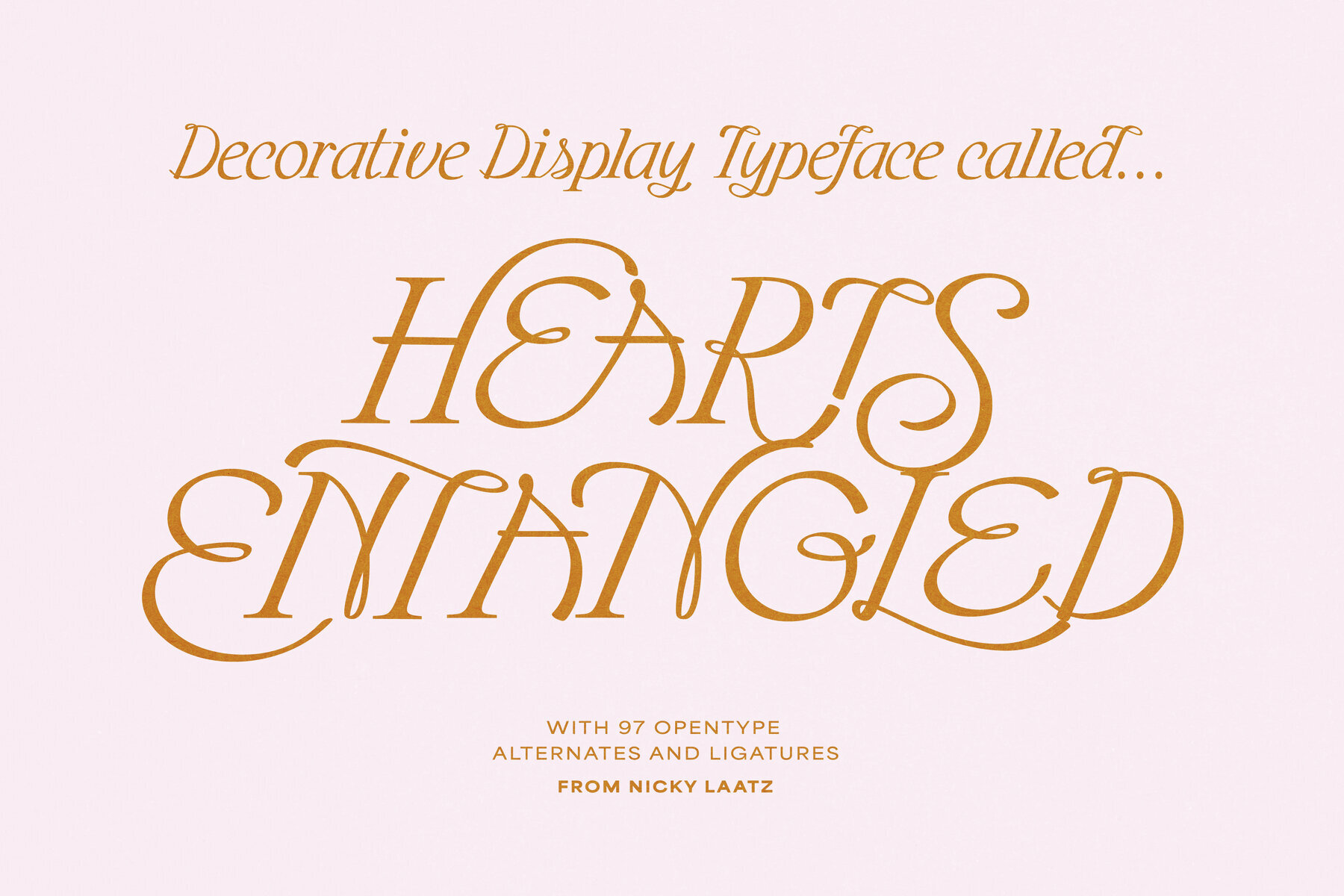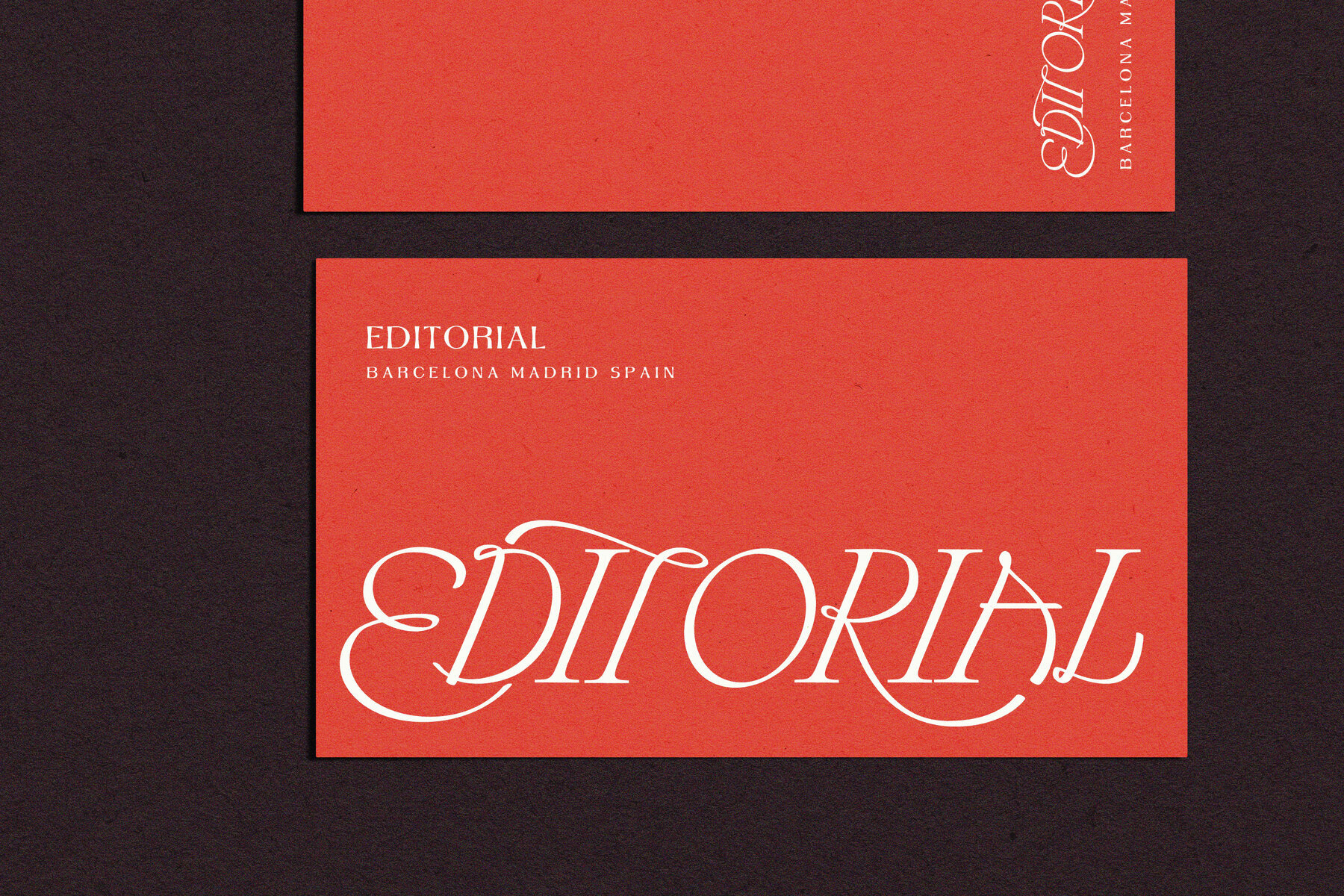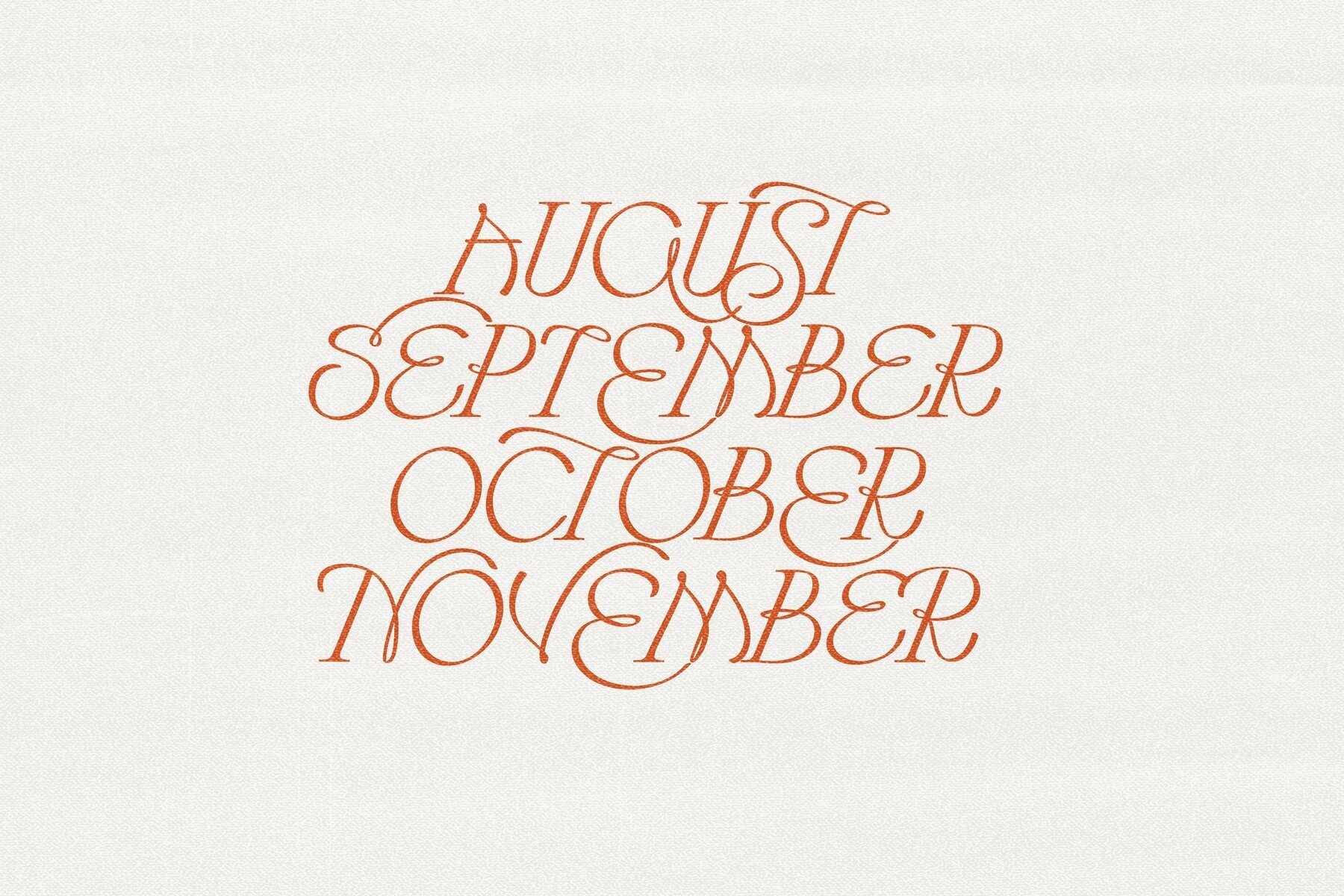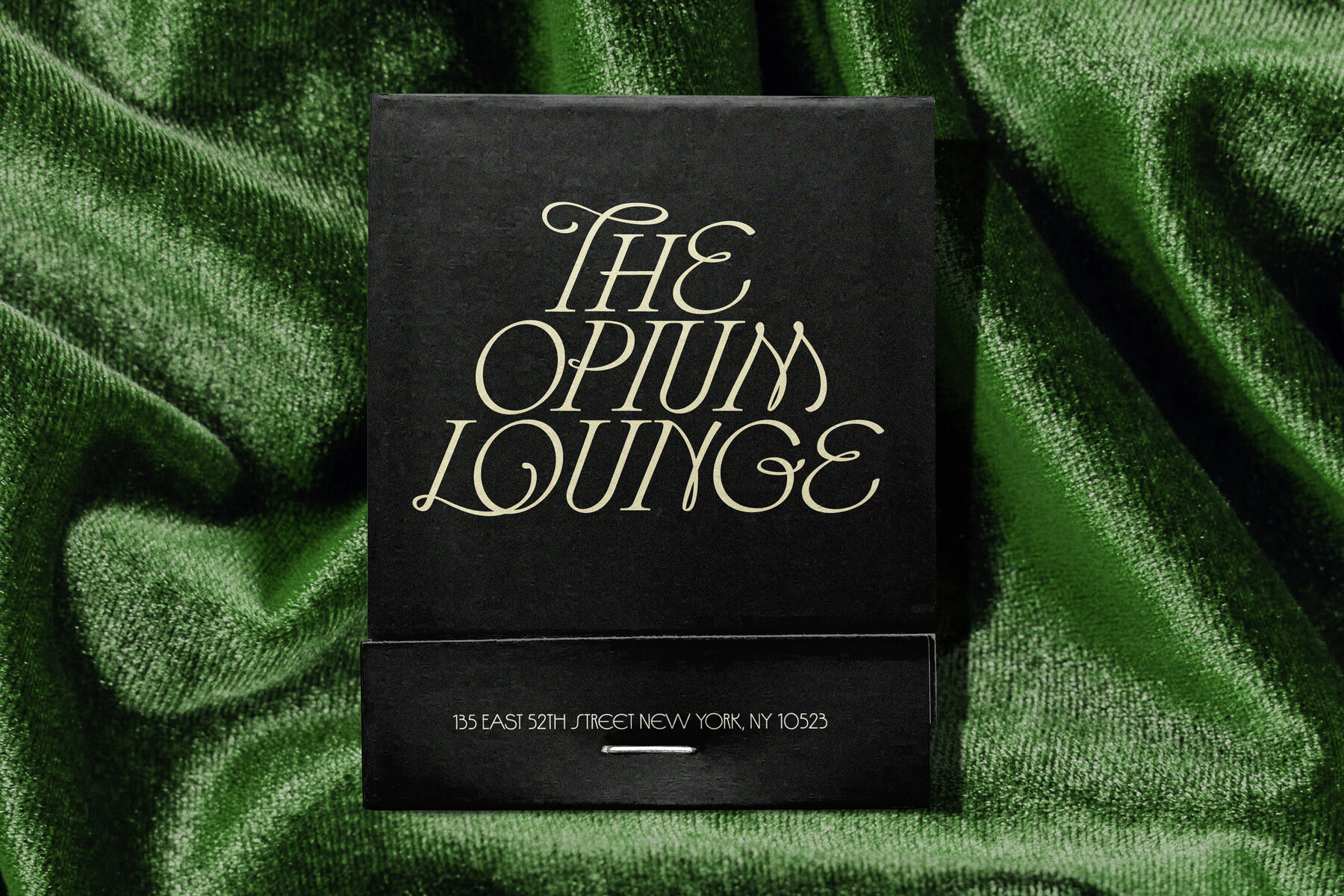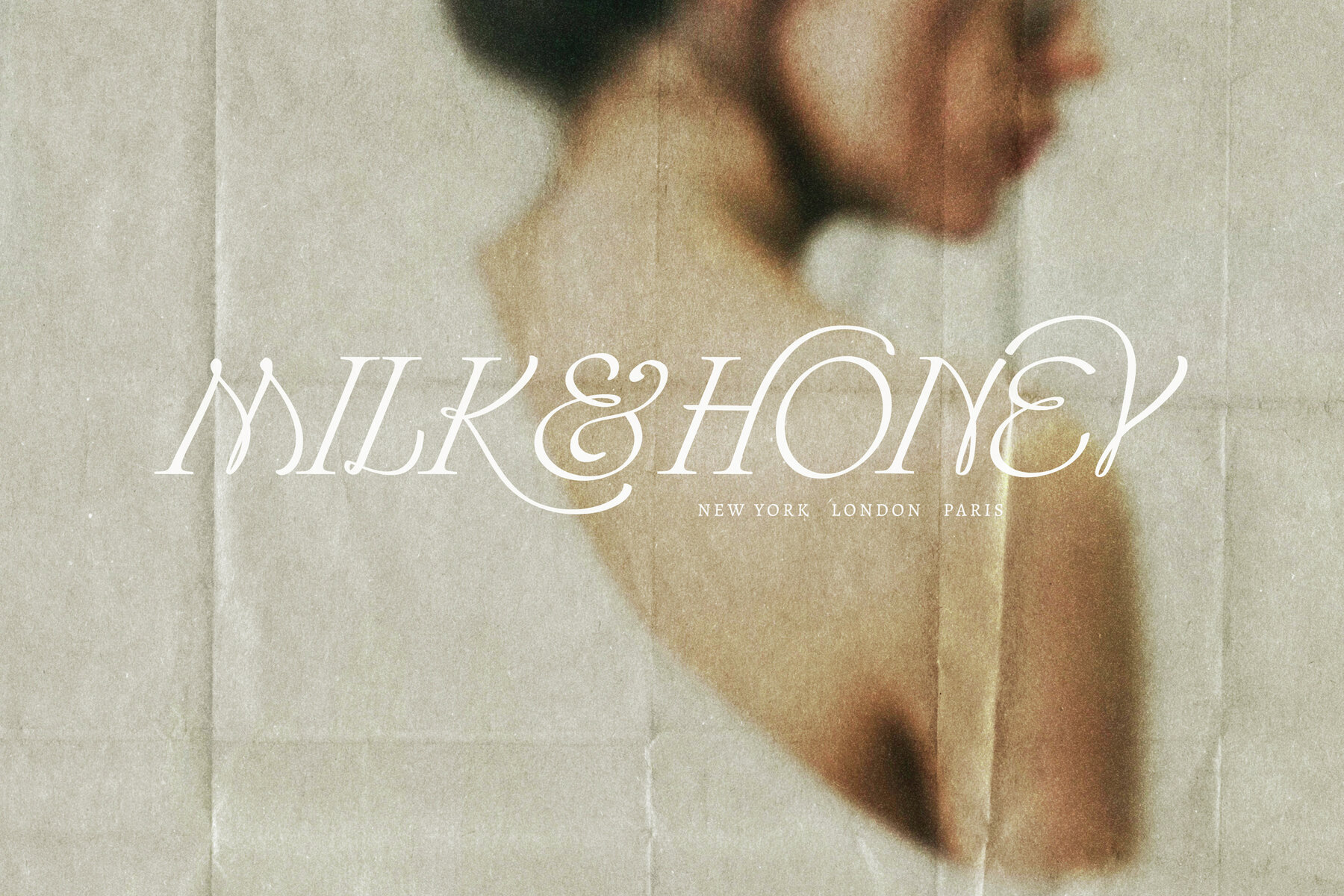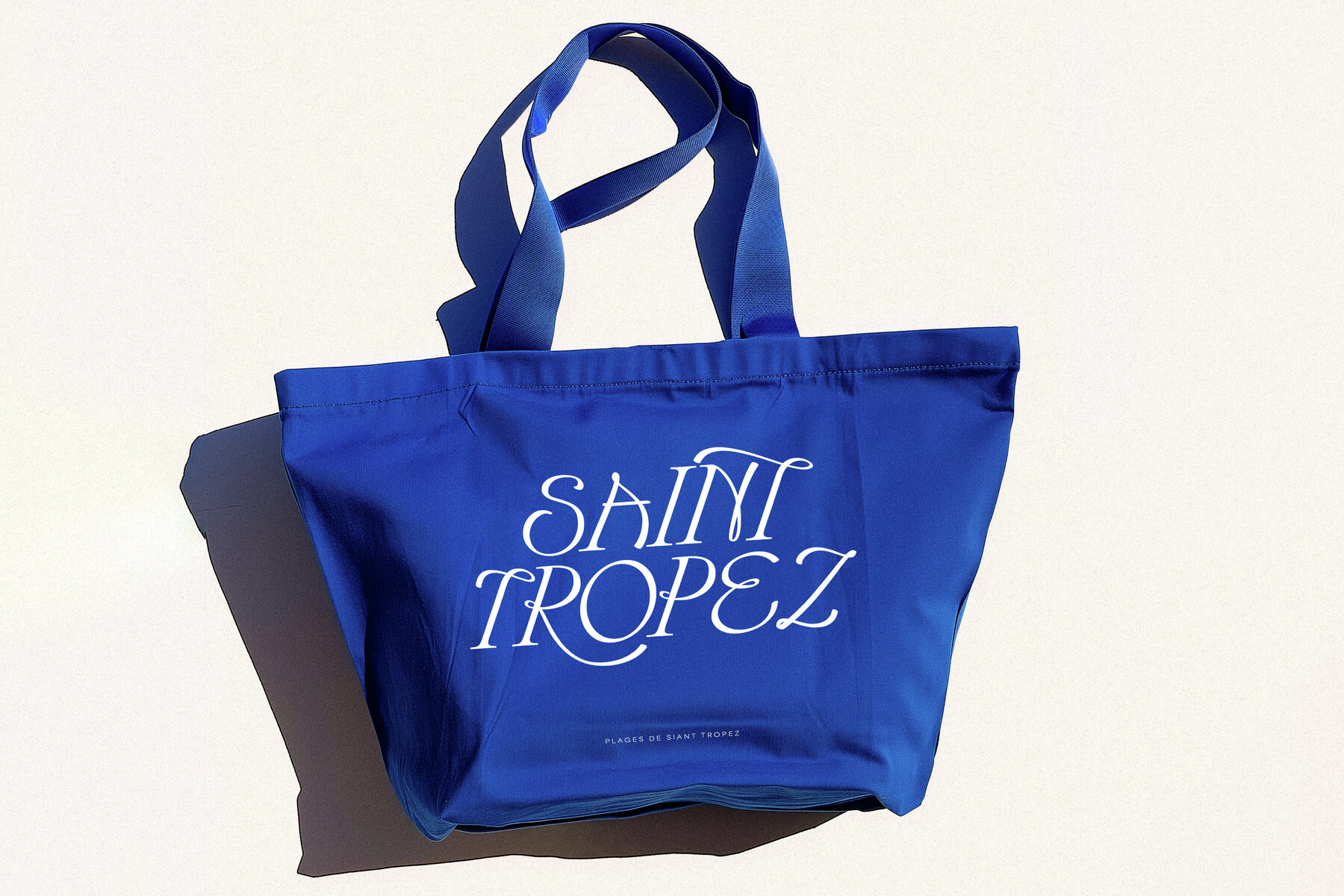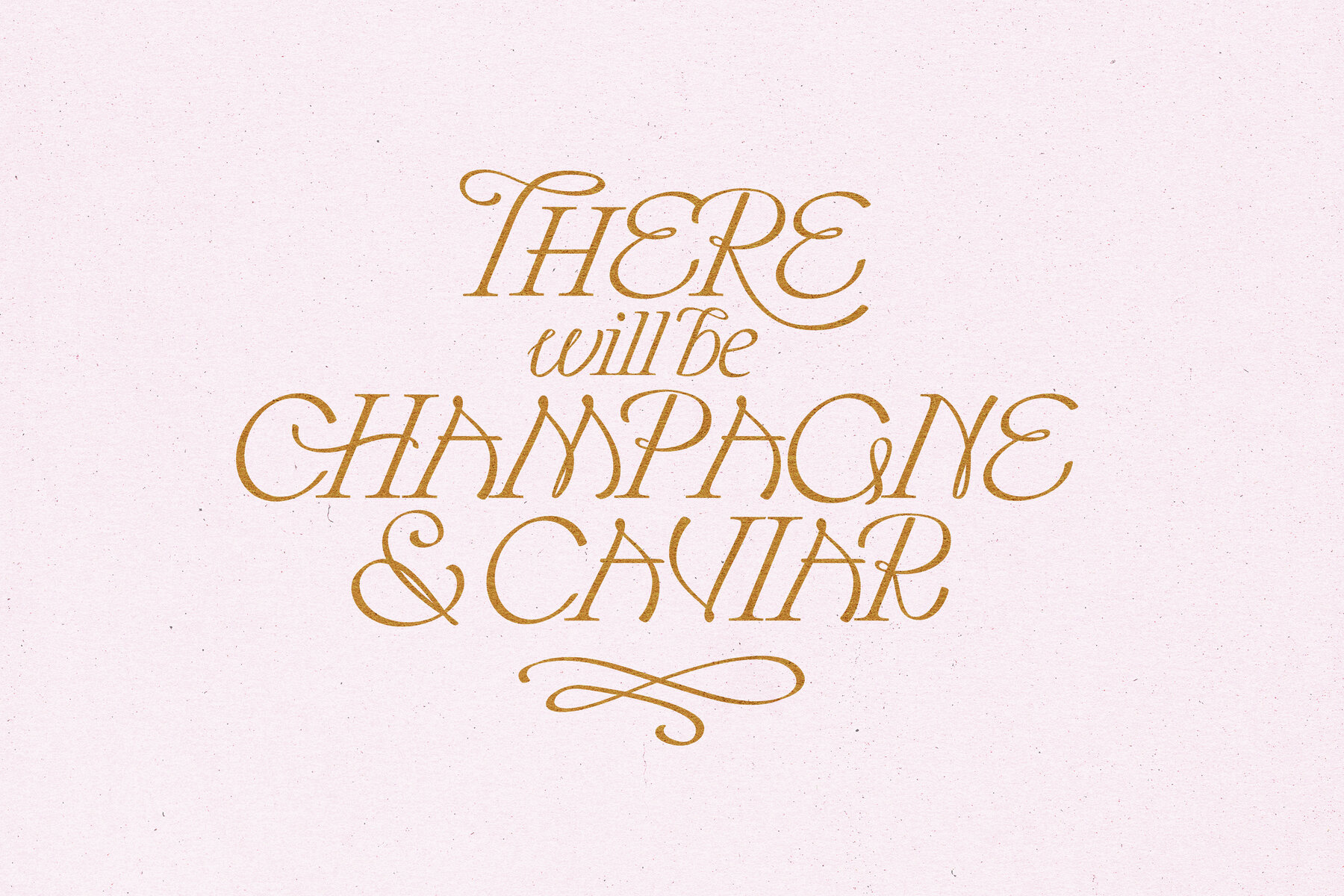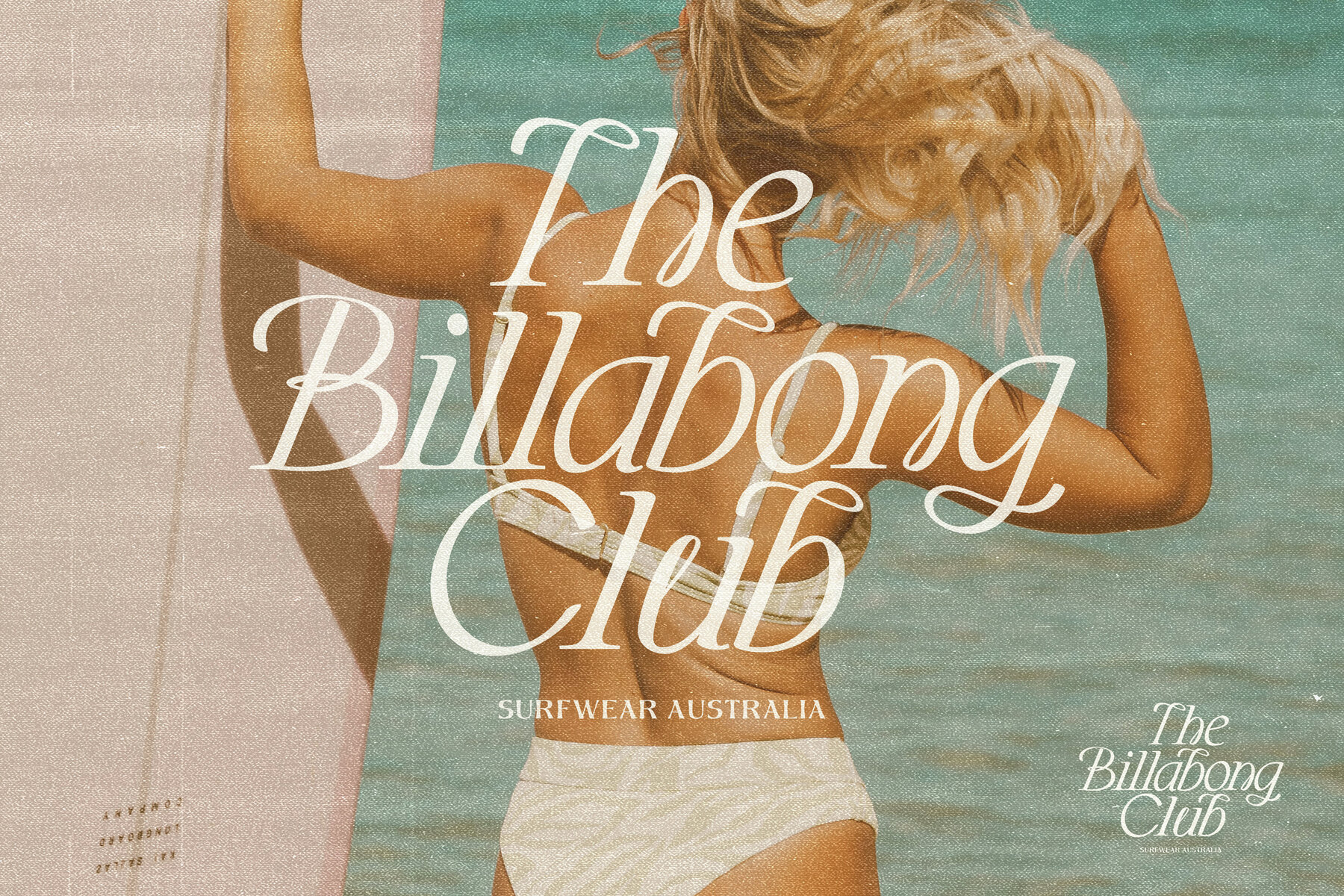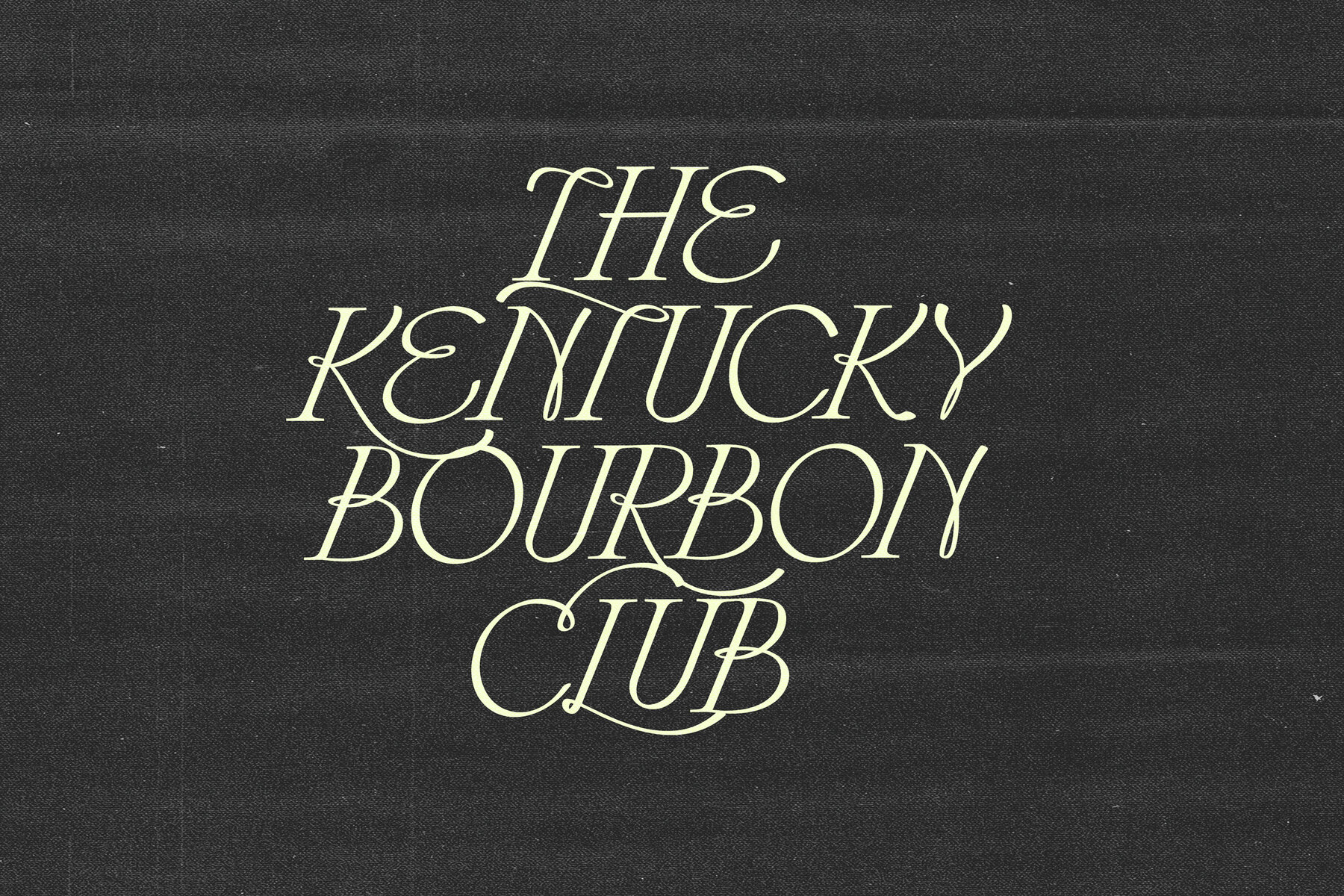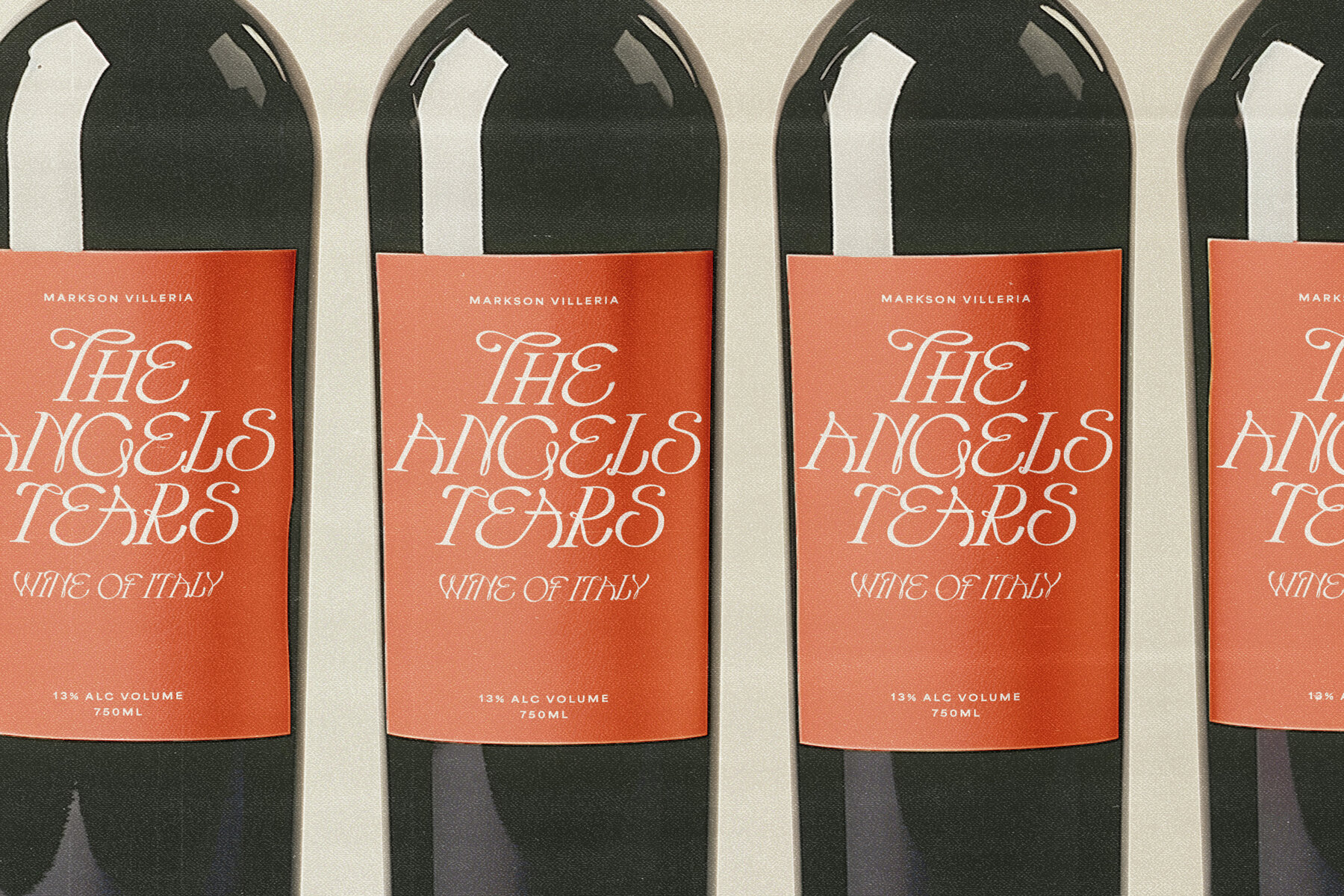
Hearts Entangled Font
Say hello to ‘Hearts Entangled’ - Where timeless, romantic calligraphy meets a traditional serif, creating an expressive, flamboyant fusion of elegance and decorative artistry. Hearts Entangled is adorned with ornate swoops and swashes that evoke the charm of Art Nouveau and Victorian-era typography. Its delicate, flowing strokes and smooth curves create a graceful and fluid aesthetic, ensuring that your text exudes a sense of classic beauty and vintage nostalgia. Designed with high contrast between thick and thin strokes,Hearts Entangled delivers a dramatic and stylish impact, perfect for luxury branding, elegant invitations, and high-end editorial designs. Opentype Extras : Be spoiled for choice with the 97 custom additional glyphs you can choose from , in the forms of Opentype ligatures, discretionary ligatures, and stylistic alternates - All accessible via Opentype. (Opentype capable software - such as Photoshop, Illustrator, Word, Figma etc.) This Typeface has 5 extra' VERY SLIGHT' weight variants - which help when using the type as bigger and smaller sizes. Please note these are not 'light' to 'bold' in the traditional sense - but rather very slight changes in the types weight. Canva Users : Hearts Entangles is PUA encoded for Canva users, but since Canva does not support Opentype Kerning (Spacing of characters in a precise way) , it is not an optimal app for this typeface, as spacing between letters has been adjusted carefully. Users without Opentype Capable software : It is highly recommended this typeface be used with Opentype Capable software due to the careful Opentype spacing/kerning which is active in Opentype capapble apps. However Hearts Entangled is encoded with PUA encoding which will allow you to copy and paste any of the extra glpyhs from your Fontbook (Mac) or Charmap ( Windows) into your design app of choice. If you are unsure how to do this a quick google search will steer you in the right direction. Language Support. : Danish, English, French, Friulian, Galician, German,Italian, Low German, Luo, Luxembourgish, Norwegian Bokmål, Norwegian Nynorsk, Nyankole, Portuguese, Romansh, Spanish, Swedish, Swiss German.**